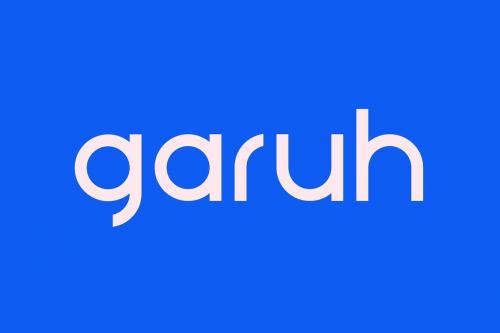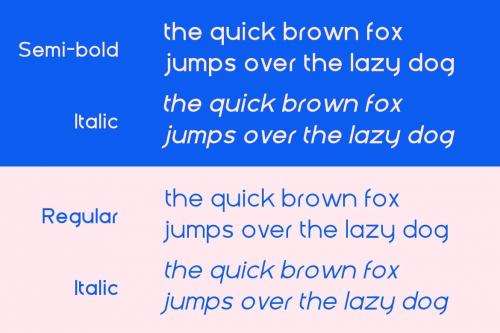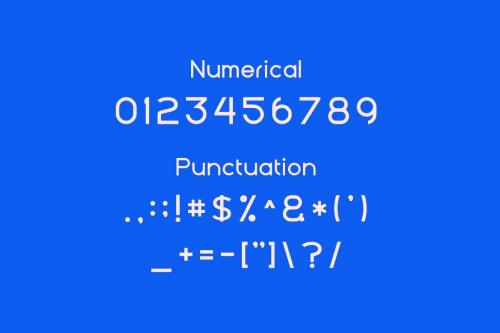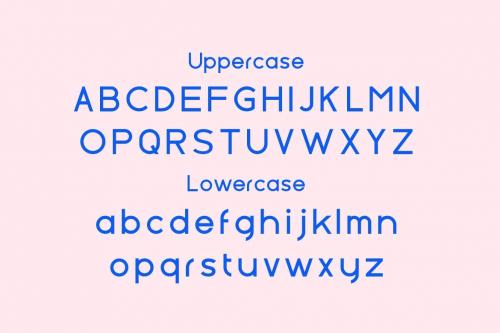
加粗Web字体家族
Garuh Web Font
This font is perfect for posters, social media posts, branding, personal projects, etc.
**garuh web font**
This font is perfect for posters, social media posts, branding, personal projects, etc.